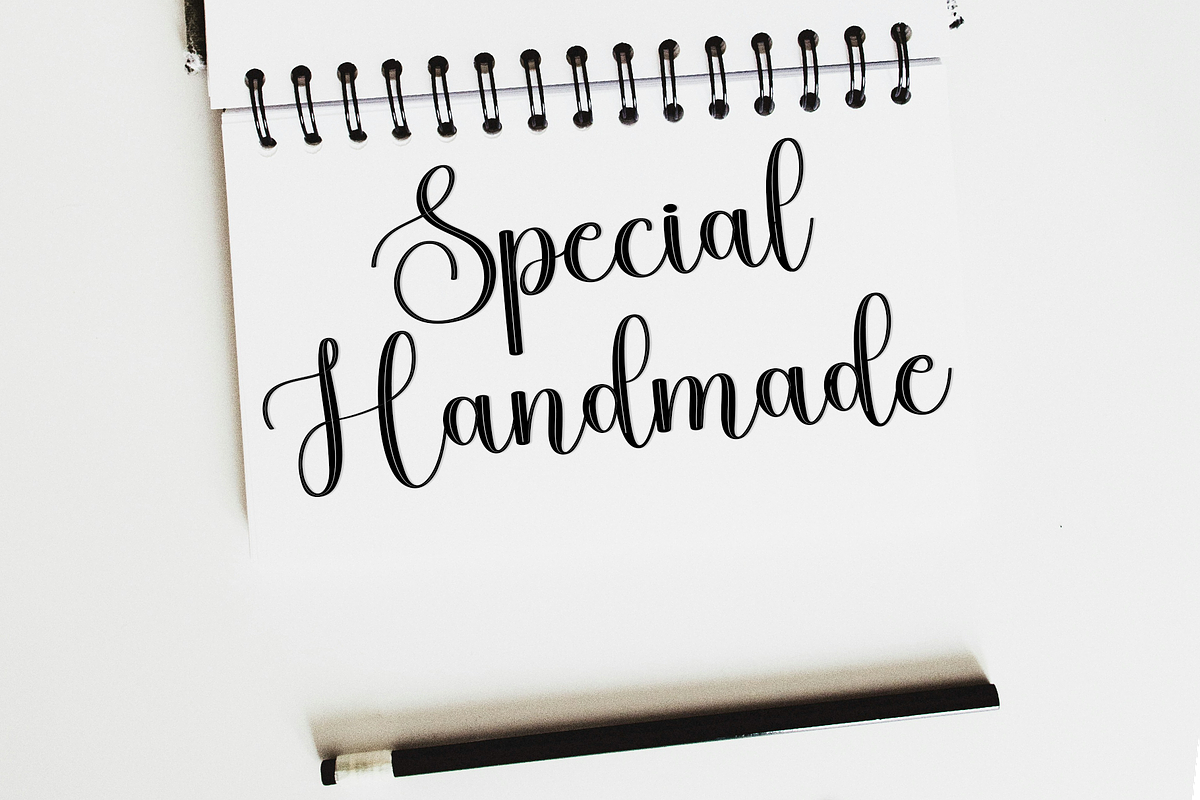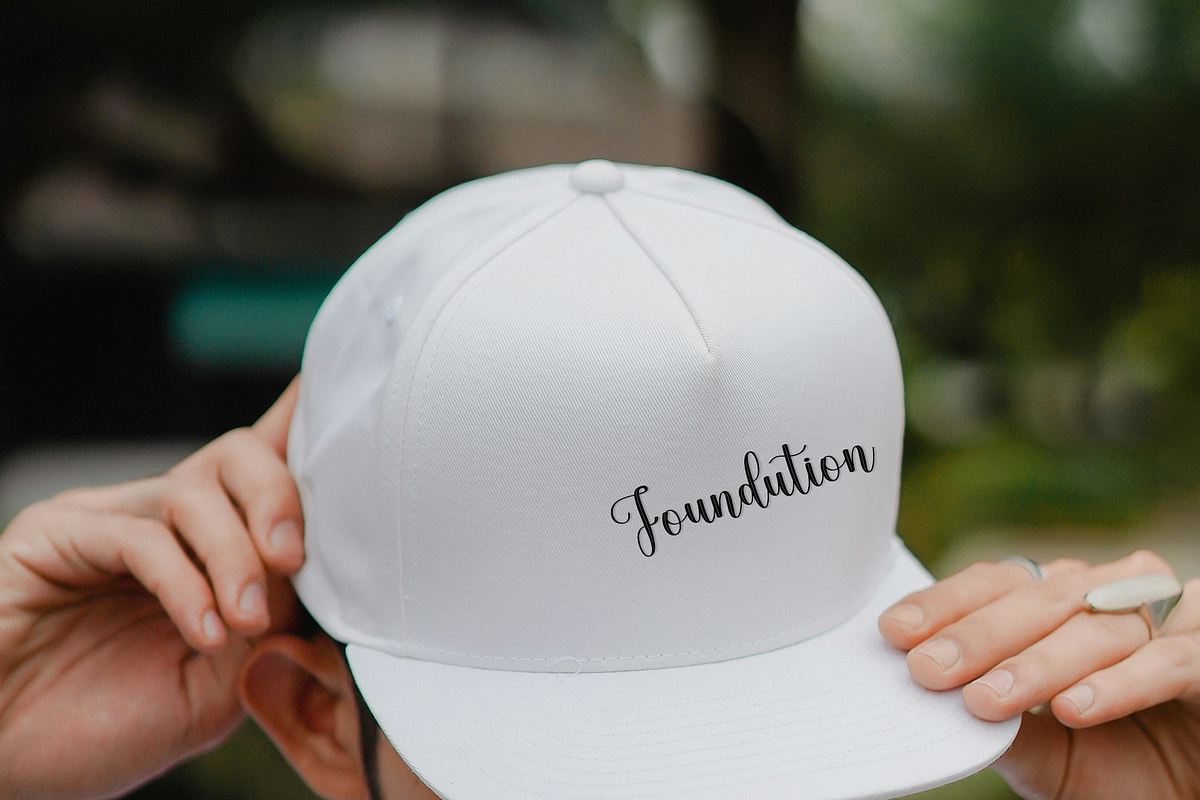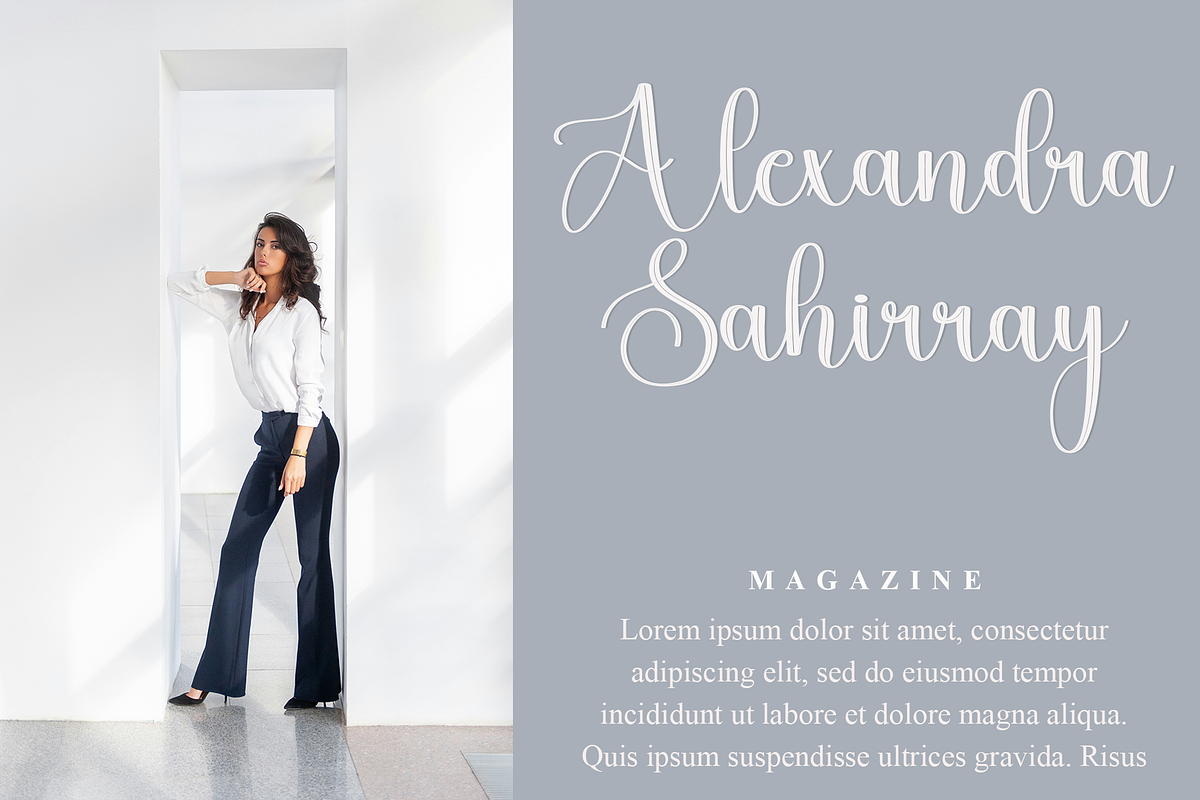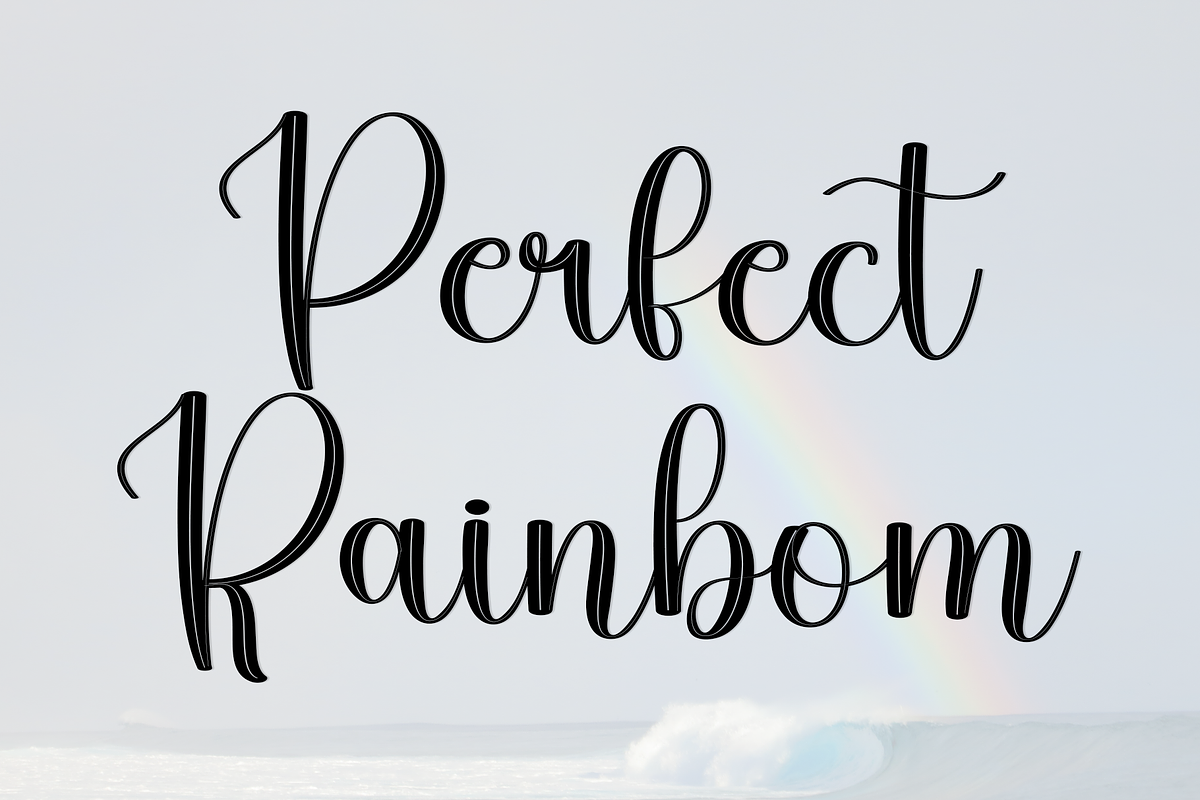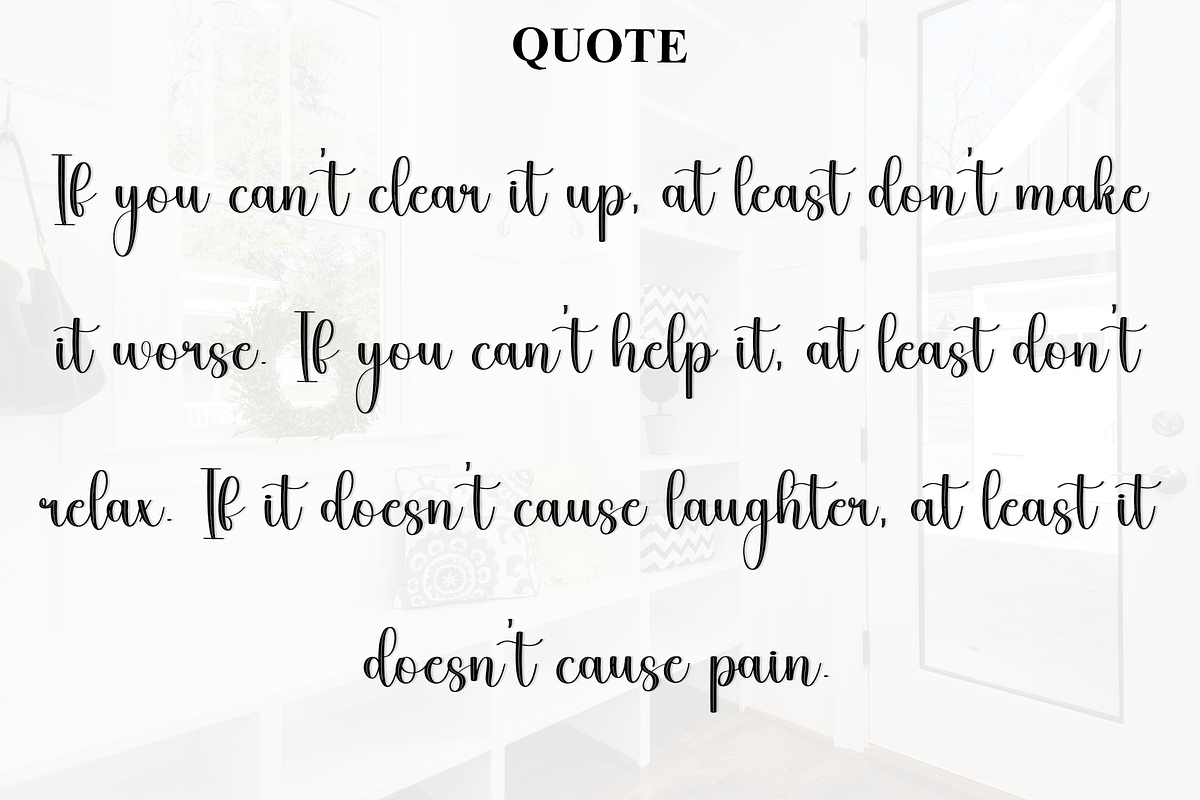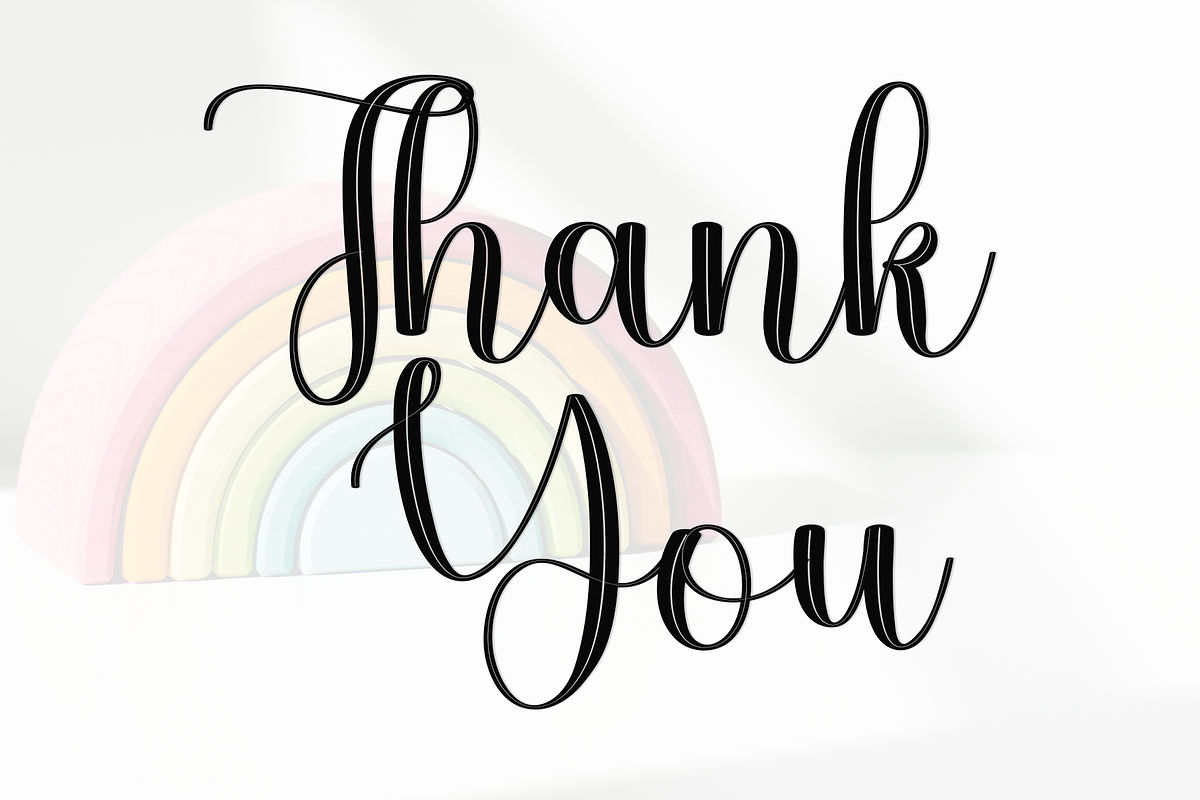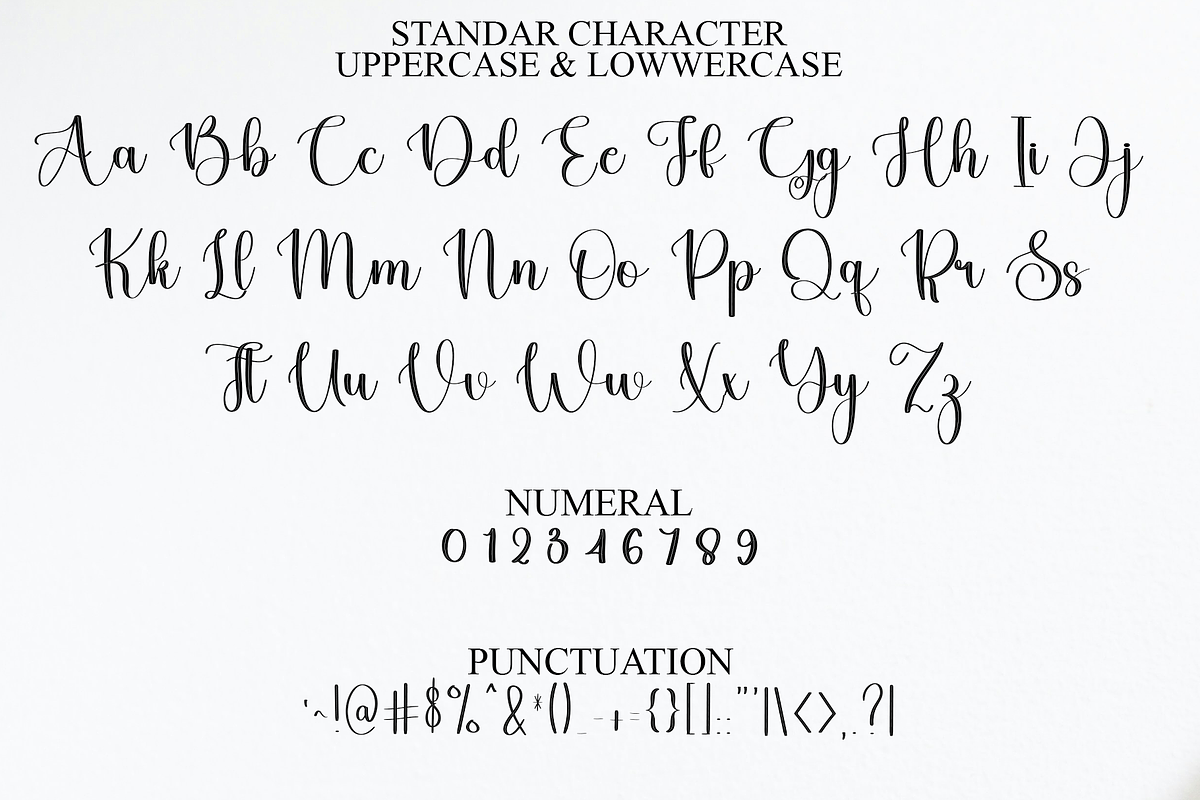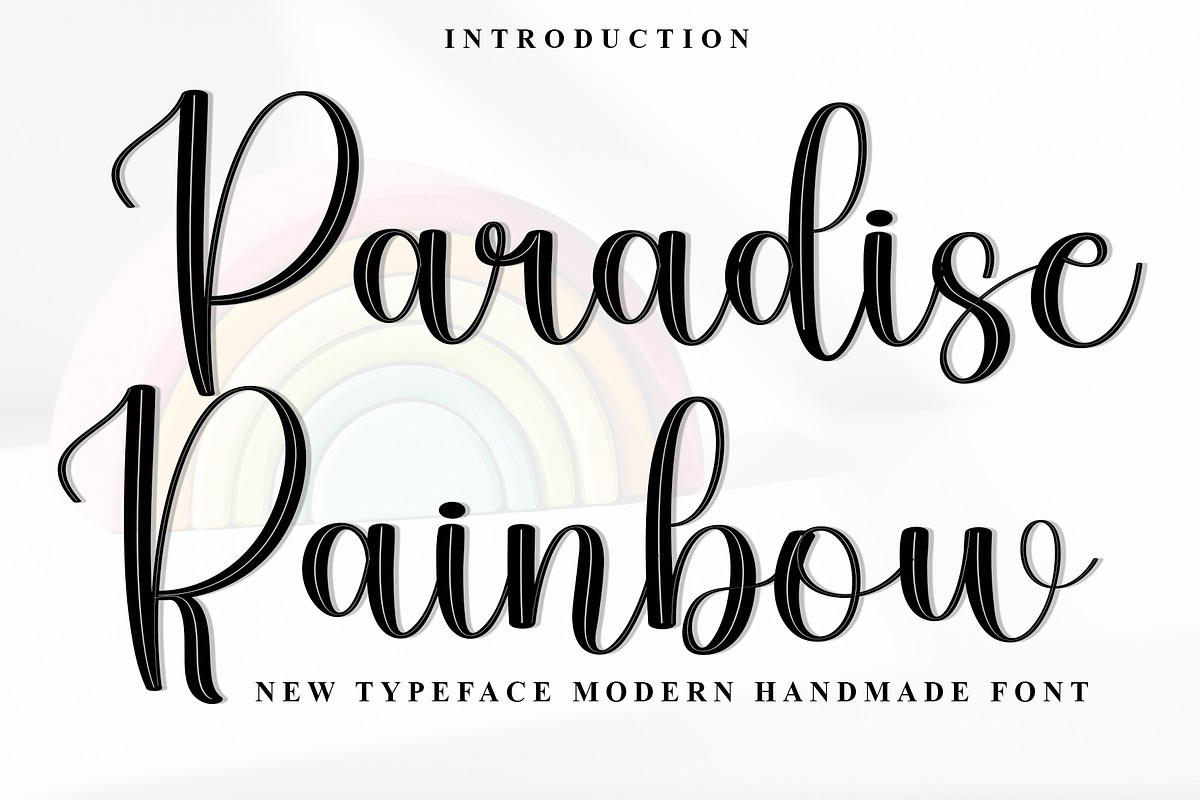
Paradise Rainbow
Paradise Rainbow is a beautiful and eye-catching font designed with a soft, unique touch. Its distinctive strokes give it a special character, making it meaningful and versatile for future use. With various characters, it’s perfect for design projects, crafts, and other creative works.